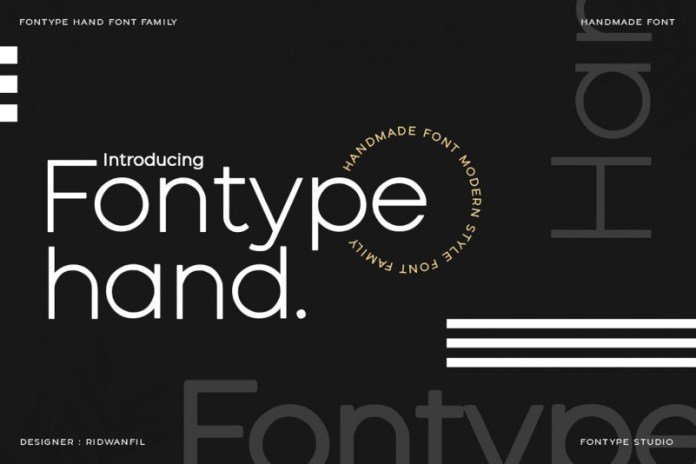
This font designed by Ridwanfil is a modern sans serif Font. It’s made with hand sketches and is more natural, so it looks a little less tidy.
However, on the other hand this type of hand-designed font looks unique, combined with modern styles and handmade fonts.
So the person who first sees this font is feeling a homemade font. FontypeHand is suitable for Logo, marketing, book, and more.